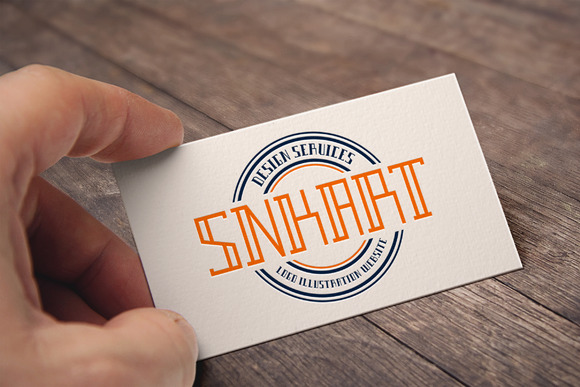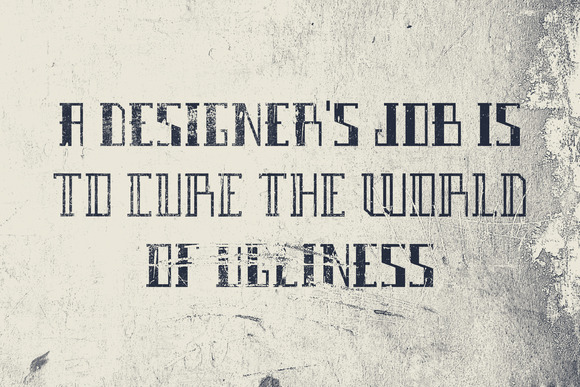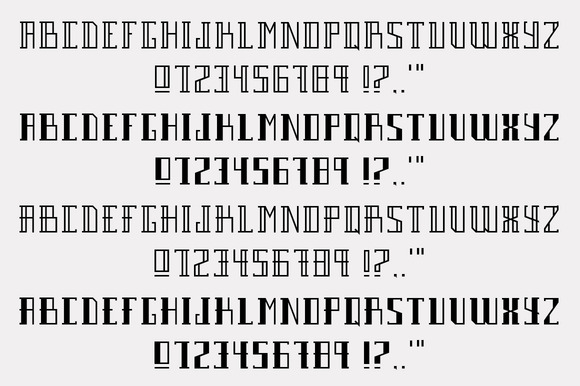
Breach Font: A Geometric Typeface for Creative Designs
In the world of typography, fonts play a crucial role in conveying messages, expressing emotions, and creating visual identities. For designers, crafters, and creative enthusiasts, finding the right font can make all the difference in bringing their ideas to life. One such unique typeface that has gained attention in recent times is the Breach Font. In this article, we’ll explore what makes Breach Font special, its characteristics, and the various ways it can be used to elevate your designs.
What is Breach Font?
Breach Font is a distinctive typeface that consists of four fonts, each with its own unique charm. Its geometric style gives it a modern and sleek look, making it perfect for a wide range of applications. Whether you’re working on a logo, heading, invitation, or any other design project, Breach Font is sure to make a statement.
Characteristics of Breach Font
The Breach Font family comprises four fonts, each with its own distinct characteristics. Some of the key features of Breach Font include:
- Geometric Style: Breach Font boasts a geometric style that gives it a modern and edgy look.
- Versatility: With four fonts to choose from, Breach Font can be used for a variety of design projects, from headings and logos to invitations and posters.
- Clean Lines: The font features clean lines and precise curves, making it easy to read and visually appealing.
Uses of Breach Font
The versatility of Breach Font makes it suitable for a wide range of design projects. Here are some of the ways you can use Breach Font:
- Headings: Use Breach Font to create bold and eye-catching headings that grab attention.
- Logos: Create a unique and memorable logo for your brand with Breach Font.
- Invitations: Add a touch of elegance and sophistication to your invitations with Breach Font.
- T-Shirt Designs: Design stunning t-shirts with Breach Font that’s sure to turn heads.
- Greeting Cards: Create beautiful and heartfelt greeting cards with Breach Font.
- Posters: Use Breach Font to create striking posters that convey your message effectively.
- Labels: Design labels that stand out with Breach Font’s clean and modern look.
- Book Covers: Create a captivating book cover with Breach Font that grabs the attention of readers.
- Brochures: Use Breach Font to design informative and visually appealing brochures.
Why Choose Breach Font?
With so many fonts available, why choose Breach Font? Here are a few reasons why Breach Font stands out:
- Unique Style: Breach Font’s geometric style sets it apart from other fonts, making it perfect for designers looking for something new and exciting.
- Easy to Read: Despite its modern look, Breach Font is easy to read, making it suitable for body text and headings.
- Customizable: With four fonts to choose from, you can mix and match to create a unique look that suits your design needs.
In conclusion, Breach Font is a versatile and unique typeface that’s perfect for designers, crafters, and creative enthusiasts. Its geometric style, clean lines, and precision curves make it suitable for a wide range of design projects. Whether you’re working on a logo, heading, invitation, or any other design project, Breach Font is sure to make a statement. With its ease of use, customizability, and modern look, Breach Font is an excellent addition to any designer’s toolkit.